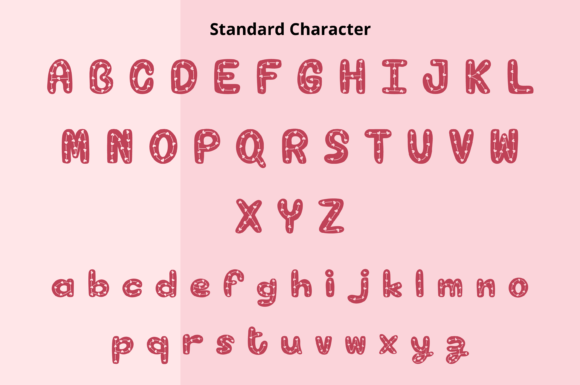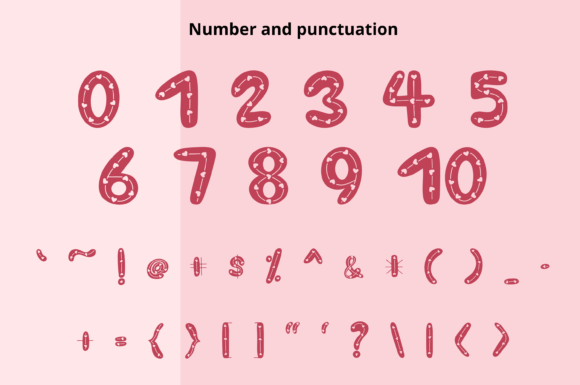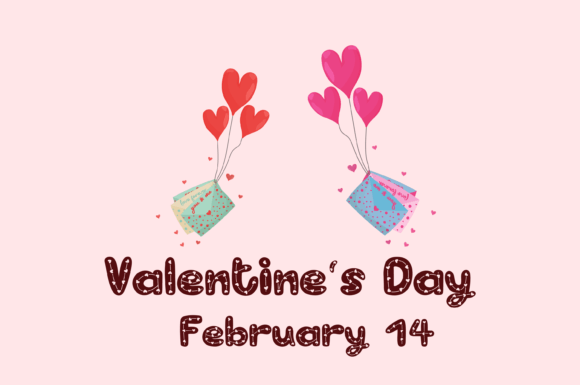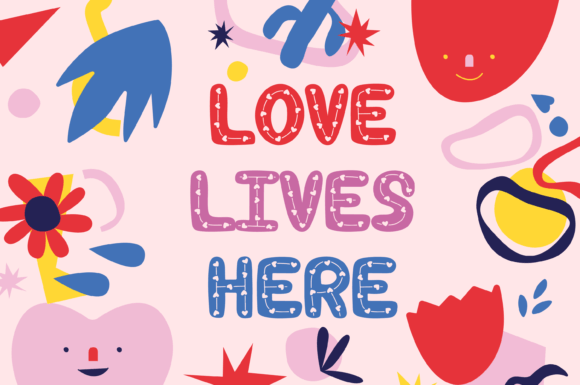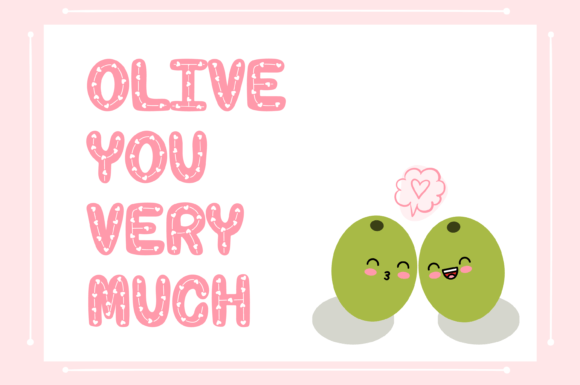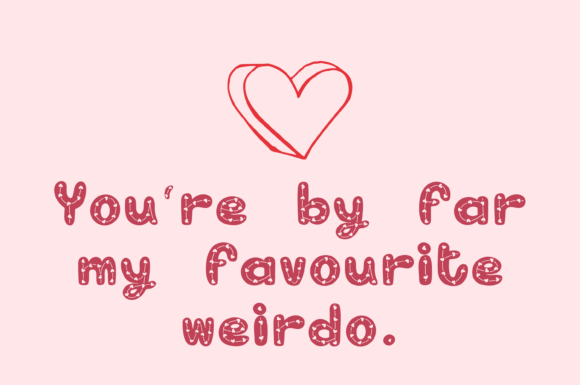
Introduction to Good Love Font
Good Love is a charming and elegant display font, perfect for adding a touch of sophistication to your designs.
With its rounded edges and tiny hearts inside the characters, this font exudes a sense of grace and beauty Get ready to fall in love with its alluring look.